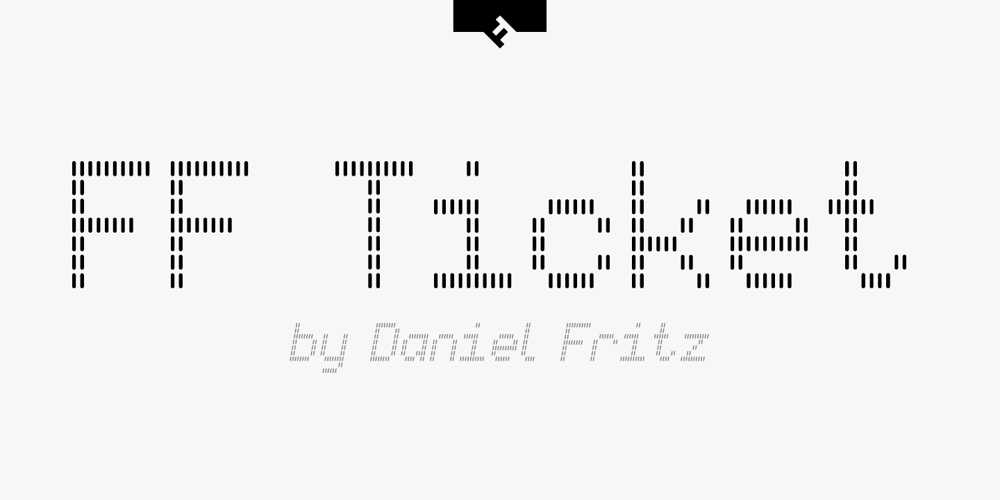
FF Ticket Font Family was designed by Daniel Fritz and published by FontFont. FF Ticket contains 8 styles and family package options. German type designer Daniel Fritz created this display FontFont in 2000. The family has 8 weights, ranging from Thin to Bold (including italics) and is ideally suited for advertising and packaging, editorial and publishing as well as poster and billboards. FF Ticket provides advanced typographical support with features such as ligatures, alternate characters, and case-sensitive forms. It comes with tabular lining figures.